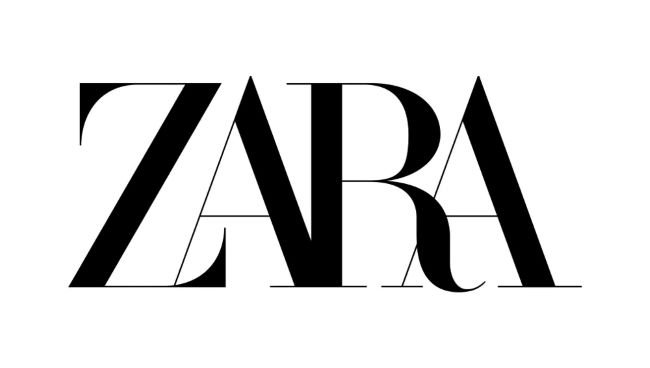
Zara Font
Zara font — a customised serif with refined, elongated letterforms that sit at the luxury-accessibility intersection the brand has made its commercial proposition — is the typography of the Inditex retail phenomenon that proved high fashion could move at the speed of fast fashion without sacrificing the appearance of quality. The Spanish retailer’s wordmark uses a tailored serif that communicates the same values as the brand itself: European elegance without European price points, the visual grammar of luxury available to anyone who walks into the right shop on the high street. Three alternatives approach this elongated, fashion-serif register: Bavex, Didot Title, and OPTIBodoni Antiqua.